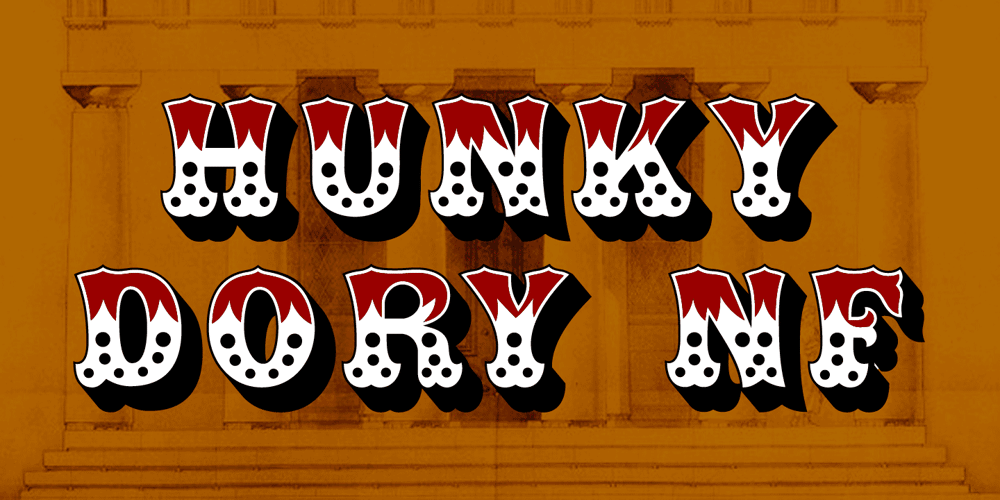
Hunky Dory NF Font Family was designed by Nick Curtis and published by Nick’s Fonts. Hunky Dory NF contains 1 styles and family package options. Here’s a page from the Page Company, circa 1850, originally called Doric. This version is reasonably faithful to the original, but streamlined for better reporduction at a variety of sizes. Both versions support the Latin 1252, Central European 1250, Turkish 1254 and Baltic 1257 codepages.